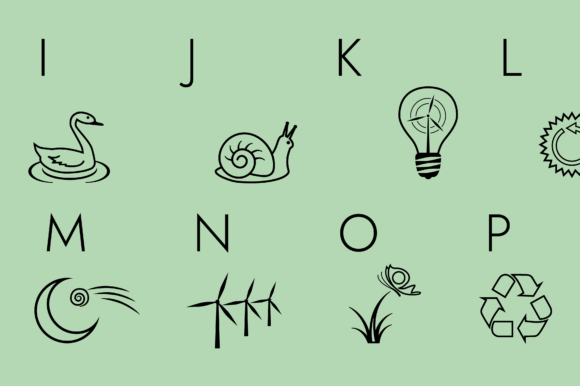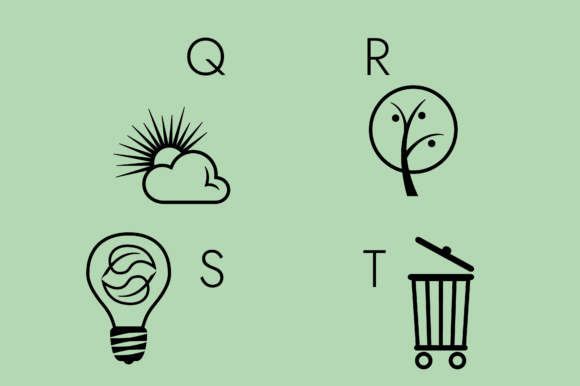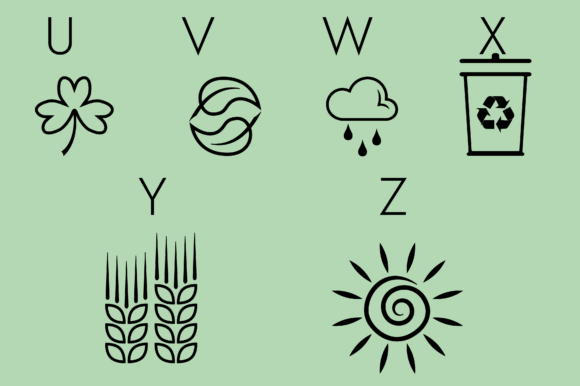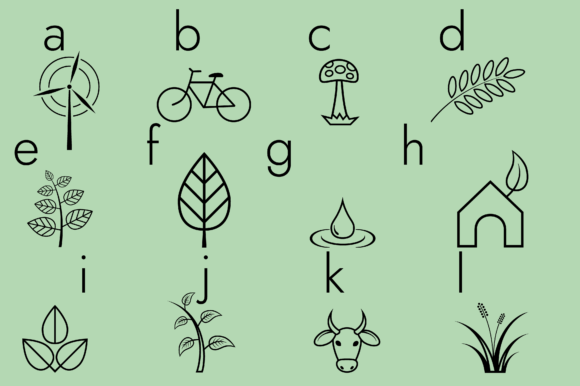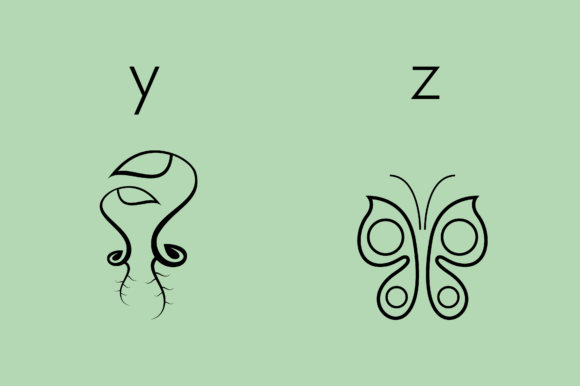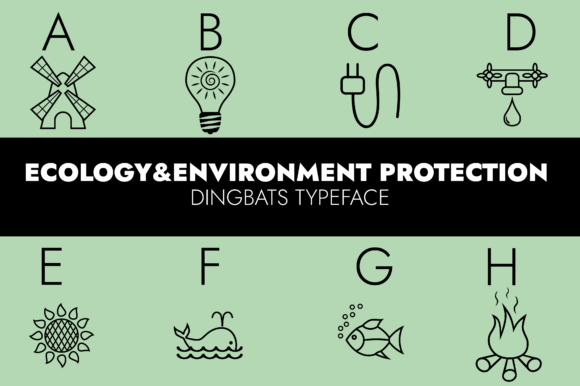
Ecology and Environment Protection Font: A Game-Changer for Eco-Conscious Designers
In today’s world, where environmental concerns are taking center stage, designers and crafters are looking for innovative ways to convey eco-friendly messages through their work. Introducing the Ecology and Environment Protection Font, a revolutionary dingbats typeface that lets you generate unique ecological and environmental protection icons and symbols with ease.
What is Ecology and Environment Protection Font?
Ecology and Environment Protection Font is a specially designed font that allows users to create eco-friendly icons and symbols by simply typing. This font is perfect for designers, crafters, and anyone who wants to add an eco-conscious touch to their work. With this font, you can generate a wide range of icons and symbols related to ecology and environmental protection, making it an essential tool for anyone working on eco-themed projects.
Key Features of Ecology and Environment Protection Font
- Easy to Use: The font is incredibly easy to use. Simply type, and the font will generate the icons and symbols in any software you’re using.
- Wide Range of Icons: The font comes with a vast library of eco-friendly icons and symbols, covering various aspects of ecology and environmental protection.
- Customizable: You can customize the font to suit your needs, adjusting the size, color, and style to match your design.
The Ecology and Environment Protection Font offers numerous benefits for designers and crafters who want to create eco-friendly designs. Some of the benefits include:
- Save Time: With this font, you can generate icons and symbols quickly, saving you time and effort.
- Increase Creativity: The font’s vast library of icons and symbols will inspire your creativity, helping you come up with innovative eco-friendly designs.
- Convey Eco-Friendly Messages: The font allows you to convey eco-friendly messages effectively, making it perfect for projects that require an eco-conscious approach.
- Stand Out: Using eco-friendly icons and symbols will make your designs stand out, setting you apart from others in the industry.
Use Cases for Ecology and Environment Protection Font
The Ecology and Environment Protection Font can be used in a variety of projects, including:
- Eco-Friendly Branding: Use the font to create eco-friendly logos, icons, and symbols for your brand.
- Environmental Posters: Create eye-catching posters that promote environmental awareness and protection.
- Social Media Graphics: Use the font to create engaging social media graphics that convey eco-friendly messages.
- Crafting Projects: Add an eco-friendly touch to your crafting projects, such as making eco-friendly cards, gift tags, and more.
The Ecology and Environment Protection Font is a game-changer for eco-conscious designers and crafters. With its ease of use, wide range of icons, and customization options, this font is perfect for anyone looking to create eco-friendly designs. Whether you’re working on a branding project, creating environmental posters, or crafting eco-friendly cards, this font is an essential tool that will help you convey your eco-friendly message effectively.